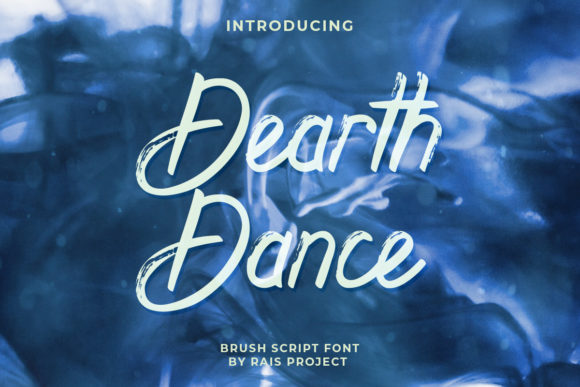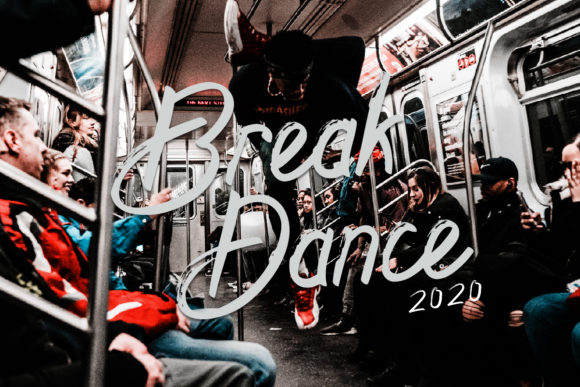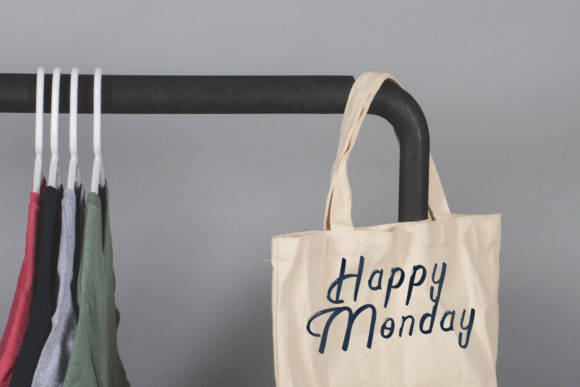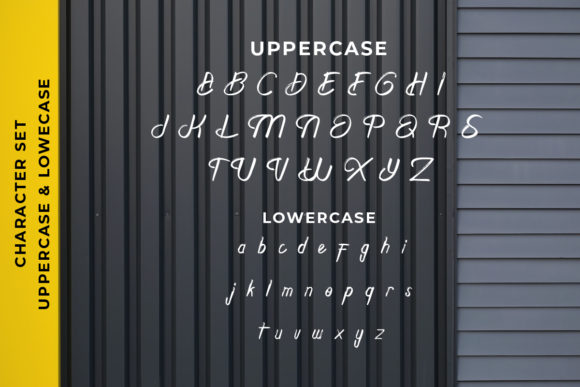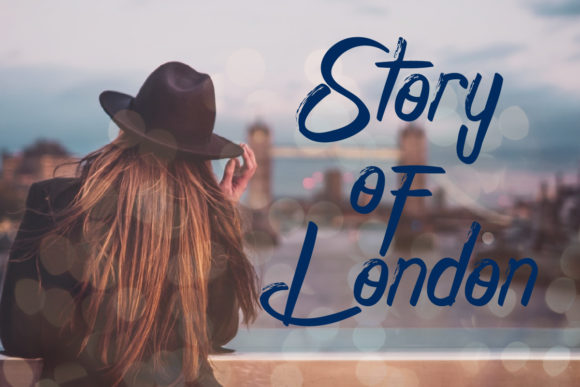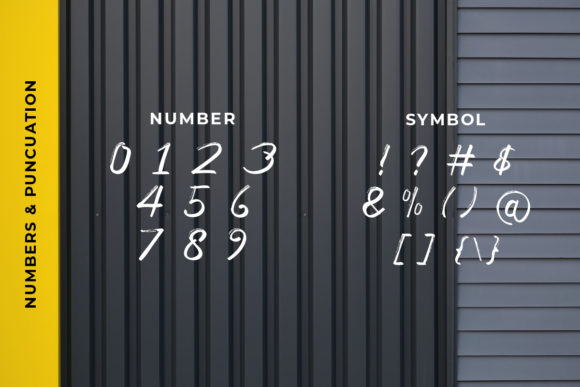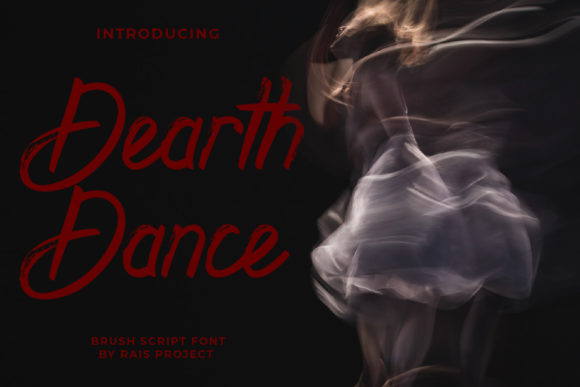
Dearth Dance Font: Elevate Your Designs with a Modern Brush Style
Are you tired of using the same old fonts for your designs? Look no further! Dearth Dance is a modern brush style handwritten font that can add a touch of elegance and sophistication to your creations. With its unique and realistic strokes, Dearth Dance is perfect for designers and crafters who want to make their ideas stand out.
What is Dearth Dance Font?
Dearth Dance is a modern brush style handwritten font that is designed to give your designs a personal and artistic touch. Its unique brush strokes and elegant lettering make it perfect for a variety of design projects, from branding and advertising to packaging and digital media.
Key Features of Dearth Dance Font
- Modern Brush Style: Dearth Dance features a modern brush style that gives it a fresh and contemporary look.
- Handwritten Elegance: The font’s handwritten elegance makes it perfect for designs that require a personal touch.
- Realistic Strokes: The font’s realistic strokes give it a natural and organic look that will make your designs stand out.
- Versatile: Dearth Dance is a versatile font that can be used for a variety of design projects, from print to digital media.
Why Use Dearth Dance Font?
There are many reasons why you should use Dearth Dance font for your designs. Here are a few:
- Add a Personal Touch: Dearth Dance font adds a personal touch to your designs, making them more relatable and engaging.
- Stand Out from the Crowd: The font’s unique and realistic strokes will make your designs stand out from the crowd and grab attention.
- Easy to Read: Despite its artistic look, Dearth Dance font is easy to read, making it perfect for designs that require a lot of text.
- Customizable: The font is highly customizable, allowing you to adjust the size, color, and style to fit your design needs.
Use Cases for Dearth Dance Font
Dearth Dance font is perfect for a variety of design projects, including:
- Branding and Advertising: Use Dearth Dance font to create unique and memorable brand identities and advertisements.
- Packaging Design: The font’s elegant and artistic look makes it perfect for packaging design, adding a touch of sophistication to your products.
- Digital Media: Use Dearth Dance font to create engaging and artistic digital media, such as social media graphics, blog posts, and website headers.
- Crafting and Scrapbooking: The font’s handmade look makes it perfect for crafting and scrapbooking projects, adding a personal touch to your creations.
Tips for Using Dearth Dance Font
Here are a few tips for using Dearth Dance font:
- Use it Sparingly: While Dearth Dance font is beautiful, it can be overwhelming if used too much. Use it sparingly to add emphasis and create visual interest.
- Experiment with Colors: The font’s elegant look pairs well with a variety of colors. Experiment with different colors to find the perfect combination for your design.
- Pair it with Other Fonts: Dearth Dance font pairs well with other fonts, such as sans-serif fonts. Experiment with different font combinations to create a unique look.
Dearth Dance font is a modern brush style handwritten font that can elevate your designs and add a touch of elegance and sophistication. With its unique and realistic strokes, Dearth Dance is perfect for designers and crafters who want to make their ideas stand out. Whether you’re creating branding and advertising materials, packaging designs, or digital media, Dearth Dance font is a versatile and beautiful choice.